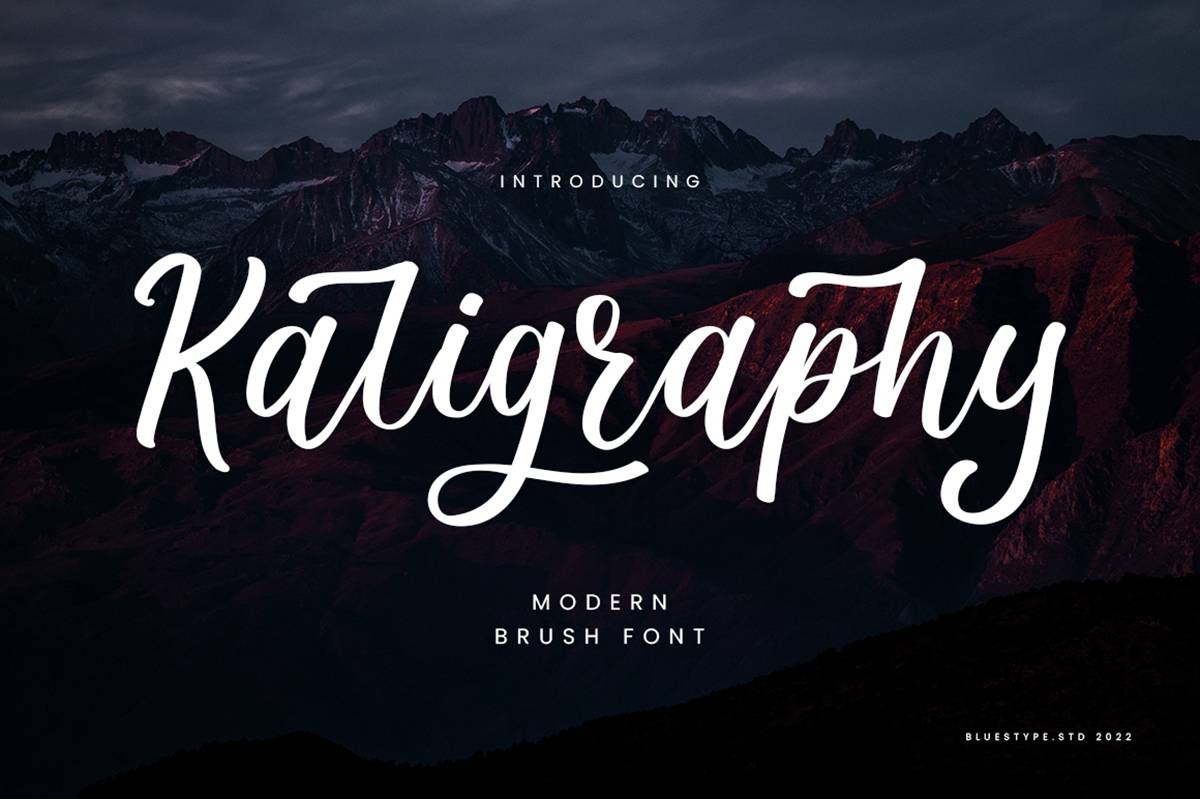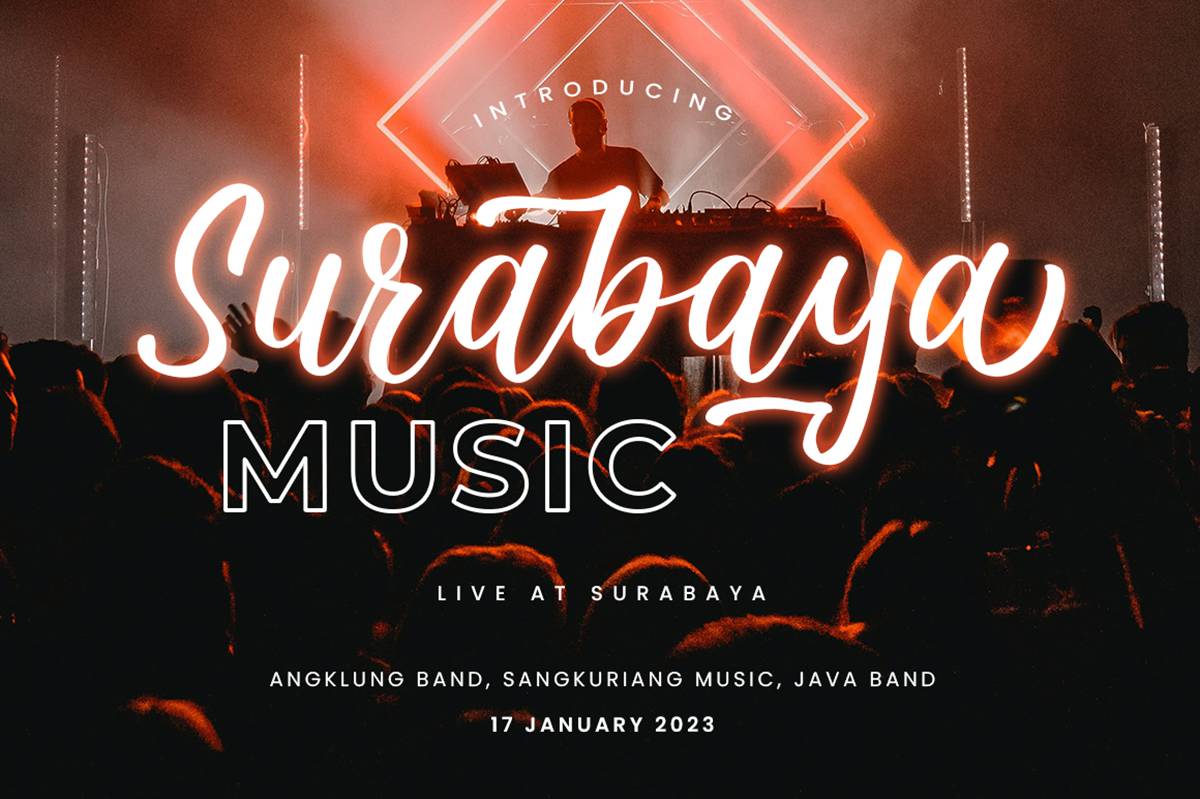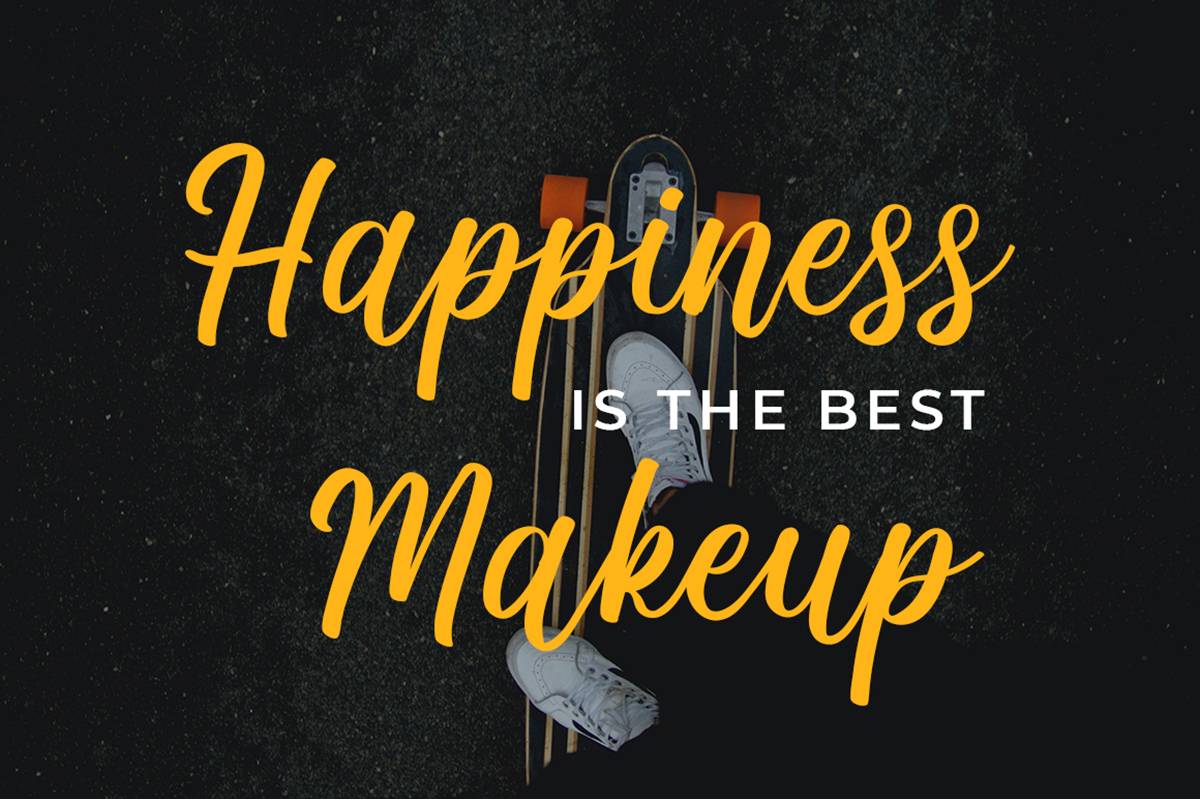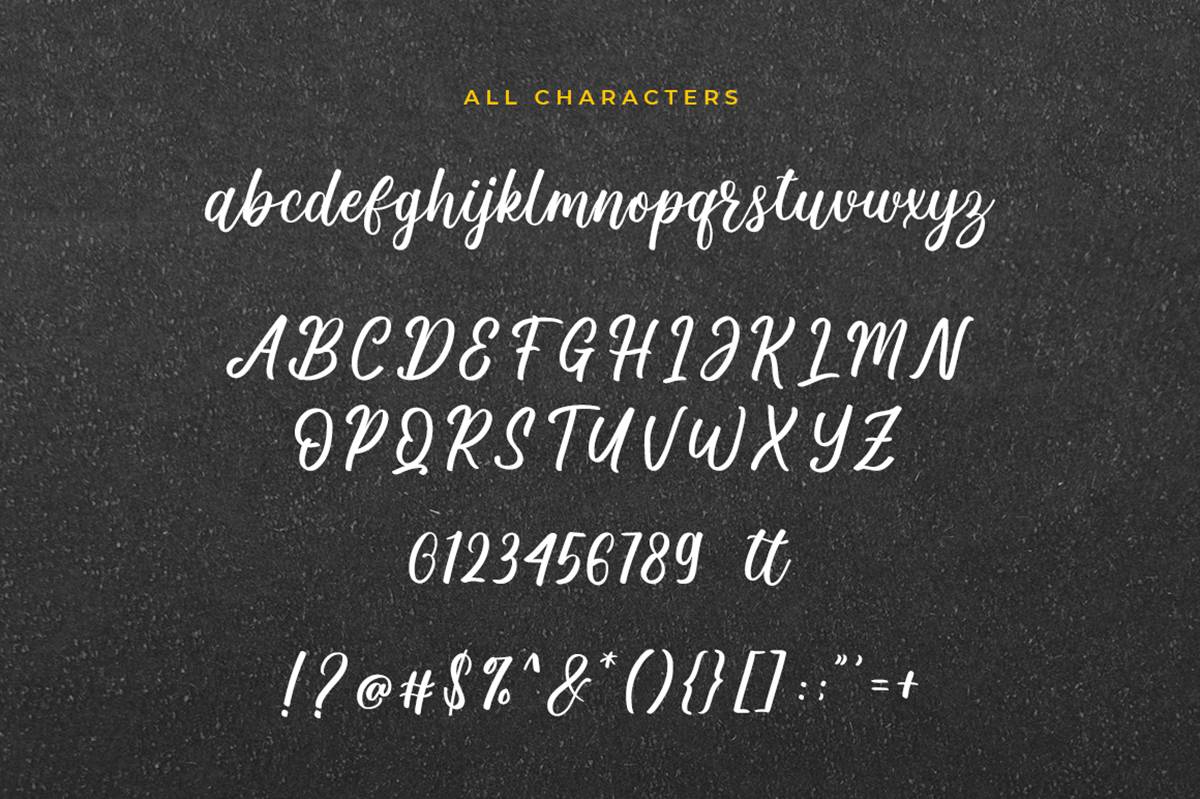
Kaligraphy Font is a stylish and elegant script typeface that mimics smooth, flowing handwriting with a modern twist. Its medium weight and slightly condensed proportions, combined with graceful curves and clean strokes, make it perfect for sophisticated branding, invitations, and creative headlines that need a personal yet polished touch. This font shines in contexts where a refined, friendly, and artistic feel is desired.
Kaligraphy Font
About Kaligraphy Font